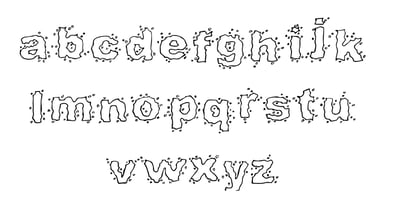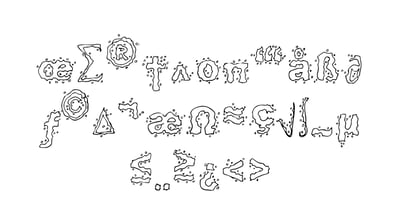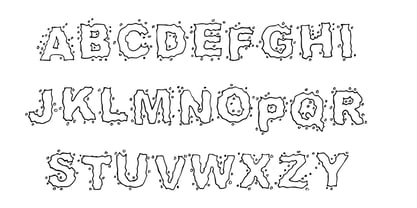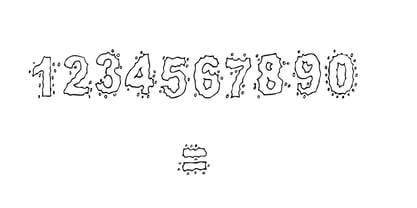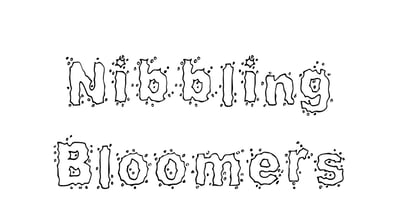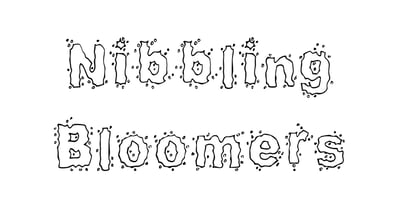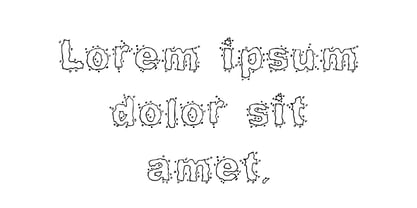
Nibblingbloomers
by Jointype
The Nibblingbloomers Font Family was designed by Jeremy Gill-Praba and published by Jointype. Nibblingbloomers contains 1 styles. More about this family
The "Crumbly" font is a delightful, handcrafted typeface that captures the whimsical essence of biscuit crumbs scattered playfully across a surface. Each character appears as though it has been gently chipped or crumbled, featuring soft, uneven edges that are slightly jagged. The letters exhibit a textured, speckled quality, reminiscent of tiny bits of biscuit adhering to them. With rounded, organic strokes and charming imperfections, this font exudes warmth and coziness—making it an excellent choice for designs centered around food, comfort, or nostalgic childhood memories of snacking. The font's density varies, with certain areas appearing more "crumbed" than others, which adds depth and dimension to the overall design. Its playful yet rustic aesthetic is perfect for projects aiming to convey an informal, friendly, and delicious vibe, whether for branding, web design, or editorial use.
Designers: Jeremy Gill-Praba
Foundry: Jointype